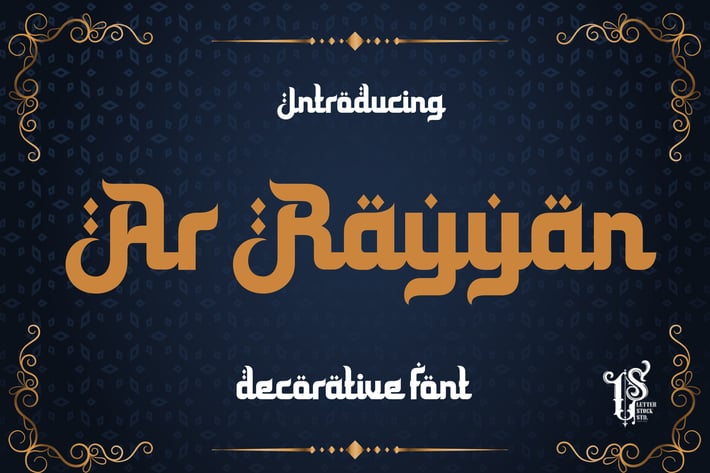
Ar Rayyan - Arabian decorative font
Ar Rayyan Font
This pair was inspired by moslem movie poster design that i saw on some coffee shop, It was crafted by hand specially to add natural handmade feeling in its brand identity than i make it clean with pentool.
Ar Rayyan Font is very good looking in logo, labels, product packaging, invitations, advertising and others.